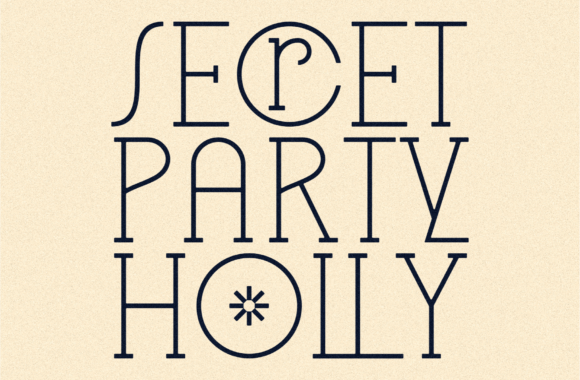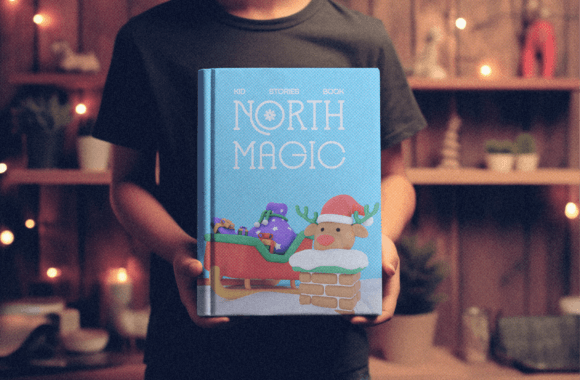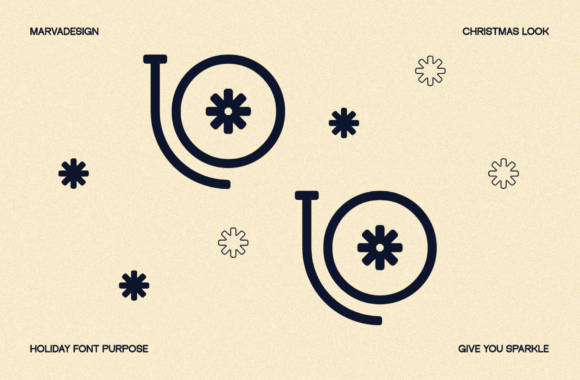
Introduction to Sleigh Holiday Font
Sleigh Holiday is an elegant serif font with a minimalist design, perfect for creating a festive yet sophisticated atmosphere.
This font is tailored for Christmas and holiday-themed events, as its style embodies warmth and celebration With slightly rounded edges at its terminals, it carries a subtle touch of vintage charm, evoking a sense of nostalgia while remaining modern and refined.
Key Features of Sleigh Holiday Font
Why Choose Sleigh Holiday Font?